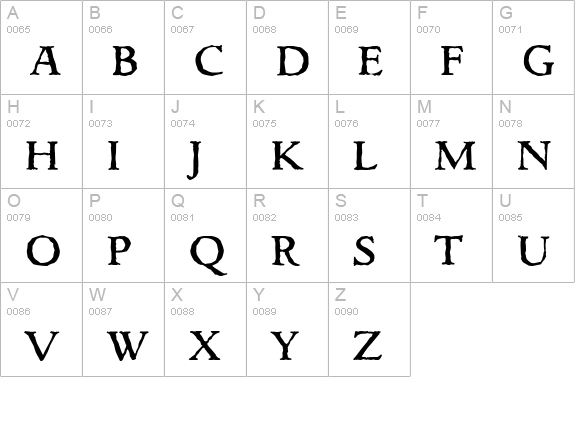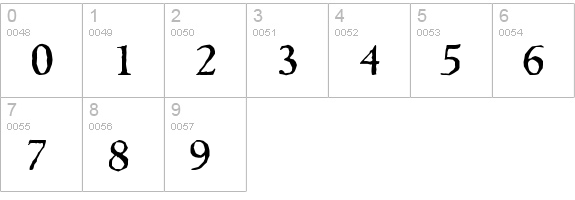
GouditaAntique-Medium-Regular Font Details
GouditaAntique-Medium-Regular is a balanced, medium-weight variant in the GouditaAntique typeface family \xE2\x80\x94 well suited to sub-headlines, navigation, and balanced editorial work.
GouditaAntique-Medium-Regular font is a timeless and elegant typeface that exudes a sense of sophistication and charm. Its classic and refined design makes it perfect for a wide range of projects, from branding to editorial design. The font's medium weight strikes the perfect balance between being versatile and eye-catching, making it ideal for both headings and body text. What sets GouditaAntique-Medium-Regular font apart is that it is available for free download at FontsMarket.com. This means that you can easily access this premium-quality font without any cost, adding a touch of luxury to your projects without breaking the bank. With its intricate details and graceful curves, GouditaAntique-Medium-Regular font is sure to elevate the visual appeal of any design it is used in. So why wait? Download GouditaAntique-Medium-Regular font today and add a touch of elegance to your next project.